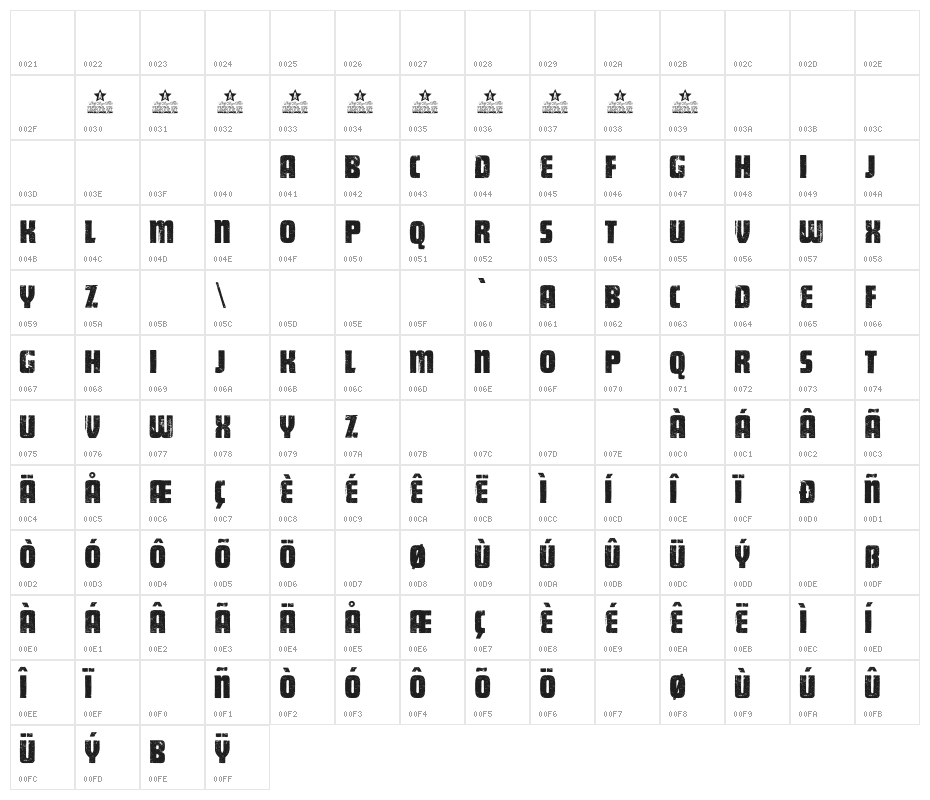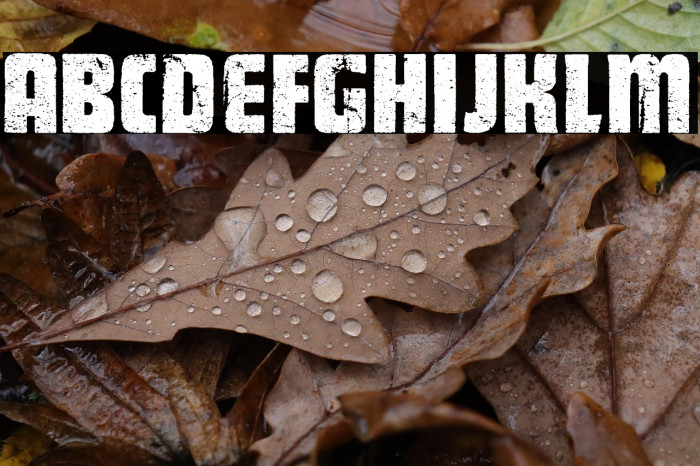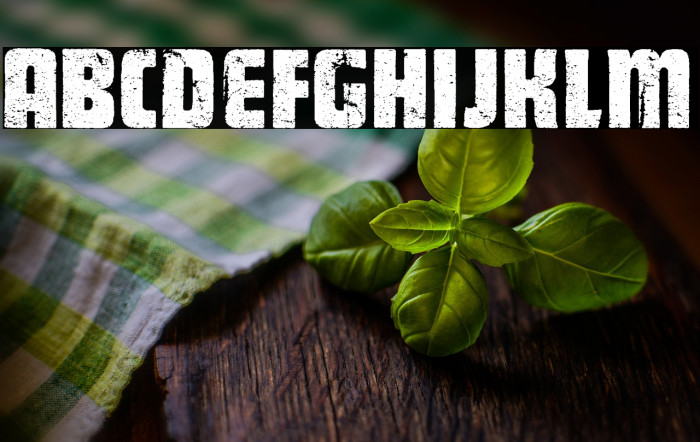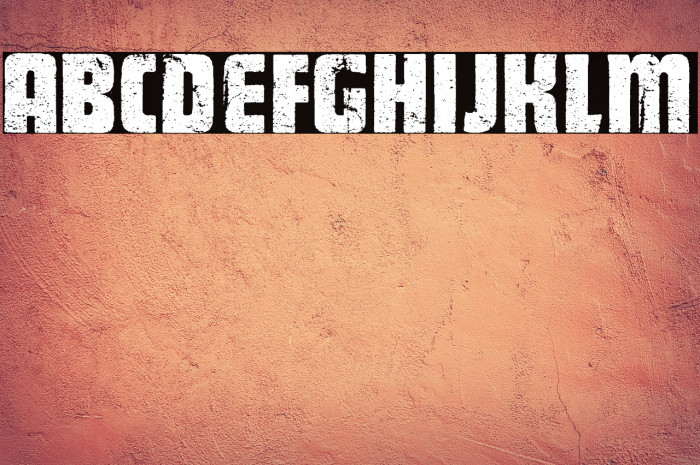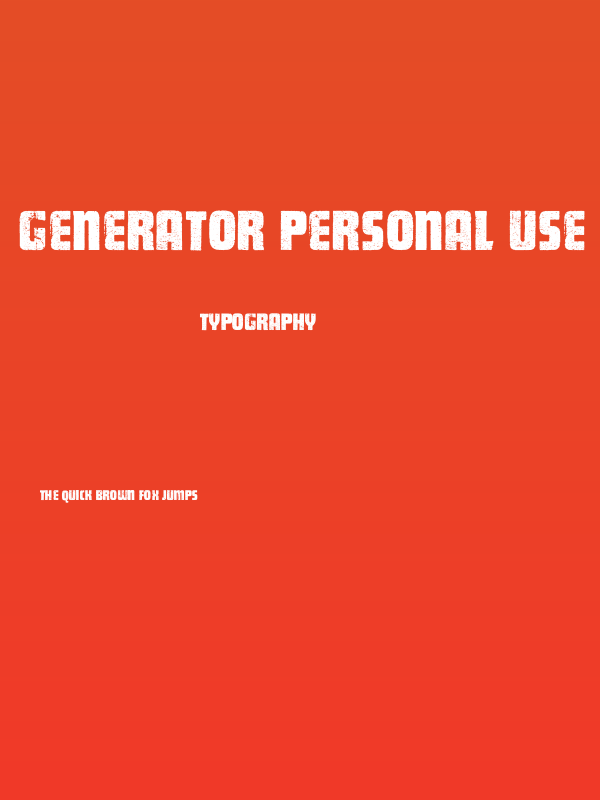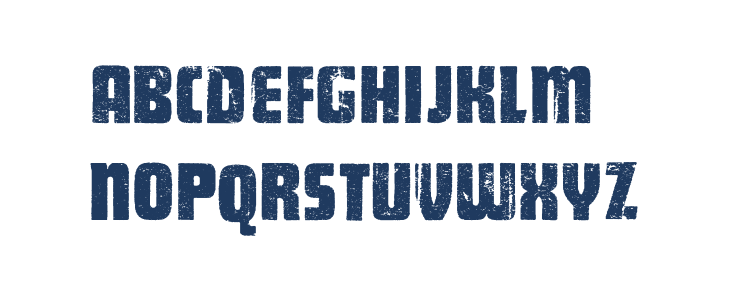
GENERATOR PERSONAL USE Font
GENERATOR PERSONAL USE Description
This font features a bold, distressed style with a rugged, textured appearance. The uppercase letters are prominent and impactful, making it ideal for designs that require a strong visual presence. The characters have a uniform width, and the texture gives them a vintage, worn-out look. This font is perfect for projects that aim to convey a sense of strength and durability, such as posters, branding for outdoor gear, or any design that benefits from a gritty, industrial aesthetic. The distressed effect adds character and depth, making each letter stand out.
| Proposed Projects | Ideal for posters, branding for outdoor gear, and designs needing a gritty, industrial look. |